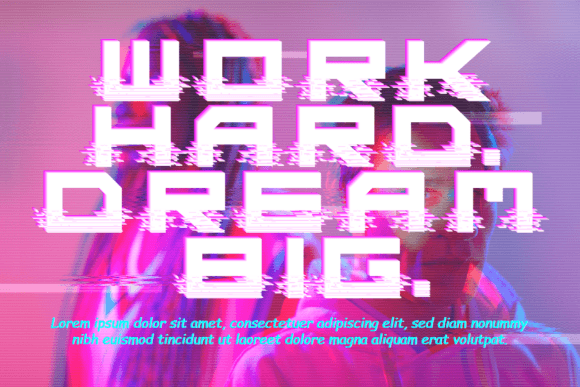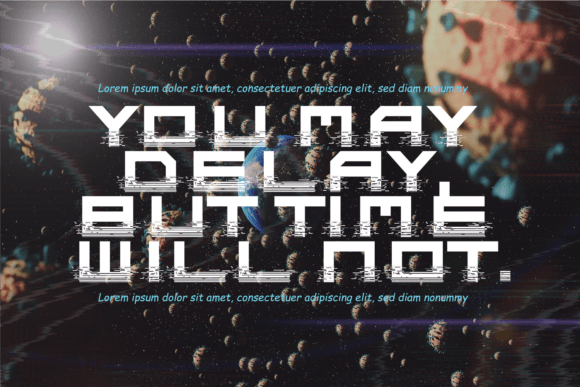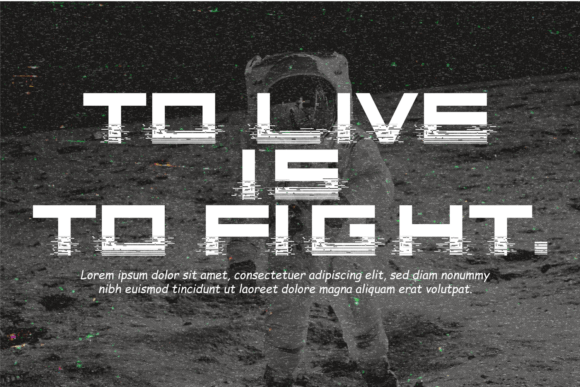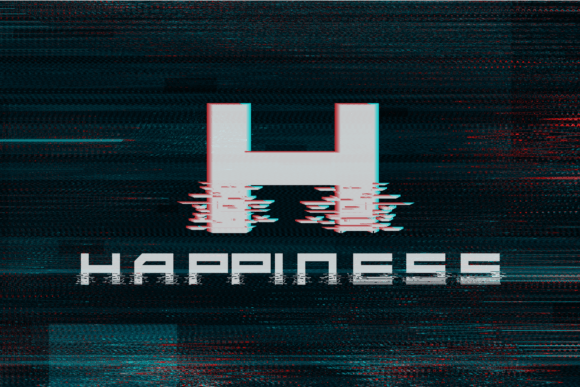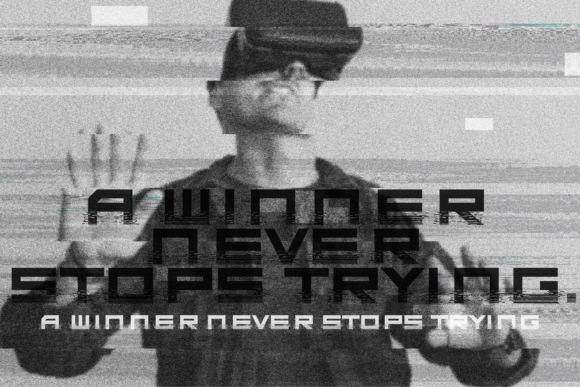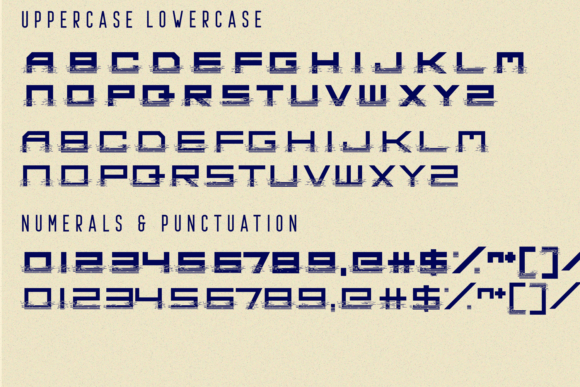
The Ultimate Digital Glitch Font: Elevate Your Designs with a Distorted Twist
Have you ever been in the middle of a design project, and suddenly, you just can’t seem to find the right font? I recall a particularly frustrating experience while working on a gaming poster project. My client wanted a font that would scream “gaming revolution,” but everything I tried seemed either too bland or too over-the-top. That’s when I stumbled upon the Digital Glitch Font – a game-changing, premium distorted glitch font that instantly elevated my design.
What Makes Digital Glitch Font So Special?
The Digital Glitch Font is ideal for designers, crafters, and creative hobbyists looking to add a unique touch to their gaming, music, and movie posters, or other graphics. This font features all uppercase letters, numbers, and common symbols, making it perfect for a wide range of applications, including posters, logos, magazines, covers, banners, t-shirts, and headers, or even large-scale artwork.
So, what do I love about the Digital Glitch Font? 🤔 Here are a few highlights:
- ✨ Unique Distorted Style: The font’s glitchy, distorted look is perfect for adding an edgy vibe to your designs.
- ✅ Wide Range of Characters: With all uppercase letters, numbers, and common symbols, you have plenty of options for creating stunning text-based designs.
- ✅ High-Quality Design: The font is carefully crafted to ensure it looks great in various sizes and resolutions.
As for quirks or limitations, there are a few to consider:
- ⚠️ All Uppercase: If you need a font with both uppercase and lowercase letters, this might not be the best choice.
- 🤔 Glyph Limitations: While the font includes a good range of characters, it might not cover every special character or glyph you need.
The Backstory Behind Digital Glitch Font
The inspiration behind the Digital Glitch Font comes from the world of digital errors and corrupted data. Imagine a world where computer screens flicker with errors, and distorted text becomes the norm. This font captures that aesthetic, bringing a unique, futuristic vibe to your designs. Whether you’re a designer looking for a bold statement font or a hobbyist experimenting with new styles, the Digital Glitch Font offers endless possibilities.
| Font Name | Digital Glitch Font |
| Author | 177Studio |
| Is the Digital Glitch Font suitable for body text? | While it’s primarily designed for headlines and titles, you can experiment with it for body text in certain contexts, especially if you’re going for a specific stylistic effect. |